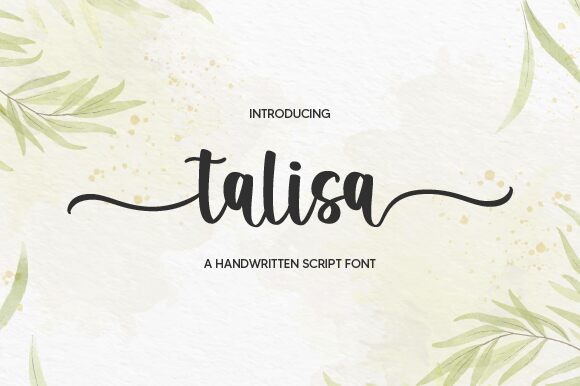
Talisa
Talisa is the perfect semi-bold font for all your creative projects that require a personal touch. Designed by Graphix Line Studio, this semi-condensed typeface has a handwritten marker style that brings a unique and organic feel to any design. It's suitable for various projects like invitations, branding, logos, packaging, and more. Talisa's playful and versatile nature lets you express your creativity in endless ways while maintaining readability and legibility. With its beautiful curves and bold strokes, Talisa is sure to grab attention and leave a lasting impression on your audience. Try it out today!